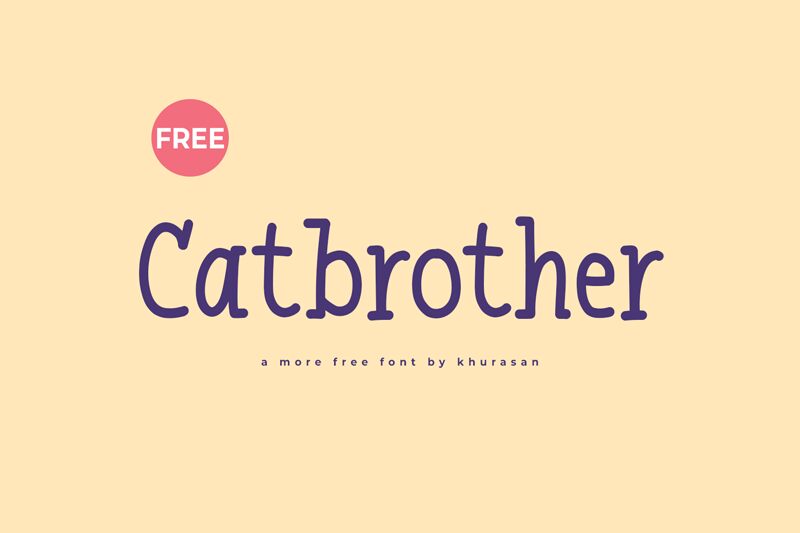
Catbrother
Catbrother, designed by Khurasan, is a playful and energetic display font that exudes a cartoonish charm. Its letters bounce with a whimsical personality, making it instantly endearing and approachable. The robust strokes give off a friendly boldness, perfect for capturing attention and injecting fun into any design.
This font's lively character makes it an excellent choice for children's books, party invitations, or any project that benefits from a touch of joy and whimsy. Whether on the cover of a graphic novel or the banner of a playful brand, Catbrother brings an element of lighthearted delight that is sure to charm audiences of all ages.